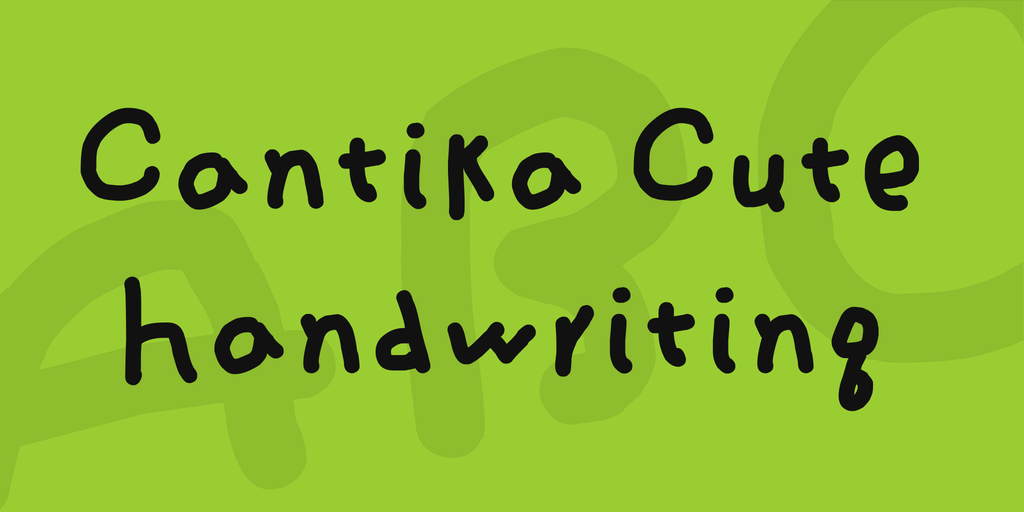
The Quest for the Perfect Handwritten Font: Discovering Cantika Cute Handwriting
Ah, the eternal struggle of finding the perfect font for your design project! I recall working on a craft project for a client’s birthday, determined to create a beautiful, handmade-style card. As I scrolled through font after font, I couldn’t shake the feeling that something was missing. That was until I stumbled upon Cantika Cute Handwriting, a delightful font created by Situjuh Nazara. In this article, we’ll dive into the world of Cantika Cute Handwriting, exploring its features, uses, and some fantastic alternatives.
An Honest Review of Cantika Cute Handwriting
- ✨ Unique and Playful Style: Cantika Cute Handwriting boasts a distinctive, handwritten look that’s perfect for projects requiring a personal touch.
- ✅ Ease of Use: This font is incredibly easy to read and works well in various design contexts, from digital to print.
- 💕 Emotional Connection: The font’s warm, friendly vibe helps create an emotional connection with your audience, making it ideal for projects that require a personal touch.
While Cantika Cute Handwriting is an excellent font, there are a few minor quirks to consider:
- ⚠️ Limited Multilingual Support: As with many handwritten fonts, Cantika Cute Handwriting might not support a wide range of languages. Be sure to check the font’s capabilities before using it for multilingual projects.
- 🤔 Occasional Kerning Issues: Some users have reported minor kerning issues, particularly with certain letter combinations. However, these can often be easily adjusted in your design software.
The Story Behind Cantika Cute Handwriting
Cantika Cute Handwriting was created by Situjuh Nazara, a talented font designer with a passion for crafting unique and beautiful typefaces. Inspired by the art of handwriting and the world of stationery, Nazara aimed to create a font that would bring a touch of warmth and personality to any design project.
| What is Cantika Cute Handwriting? | Cantika Cute Handwriting is a unique, handwritten font created by Situjuh Nazara. |